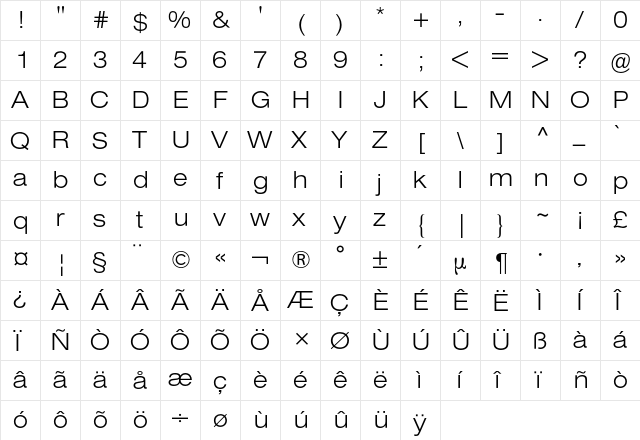
Helvetica Extended BQ Regular
Design Context for Helvetica Extended BQ Typeface
Helvetica Extended BQ takes a measured approach to typography — its balanced proportions and neutral character make it a reliable workhorse for both digital and print work.